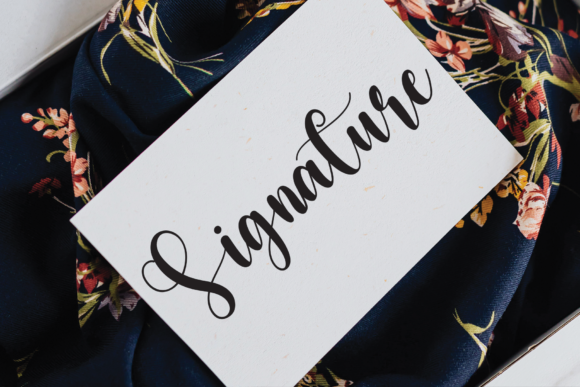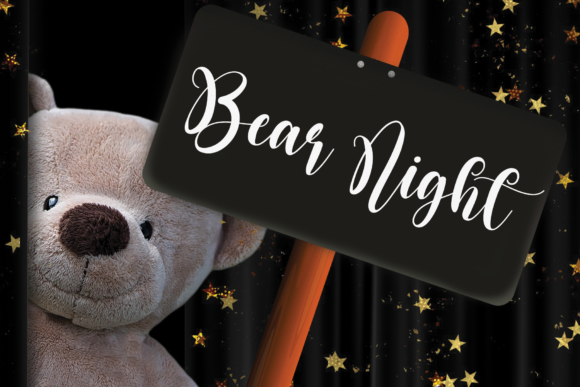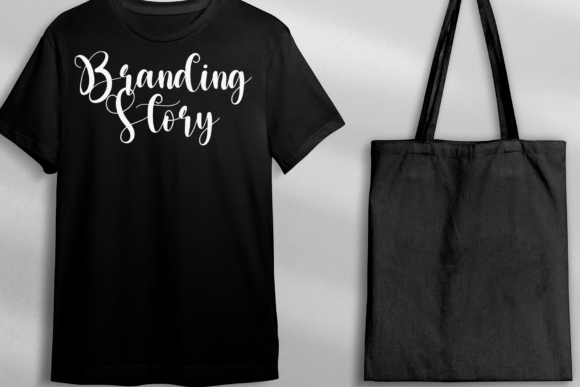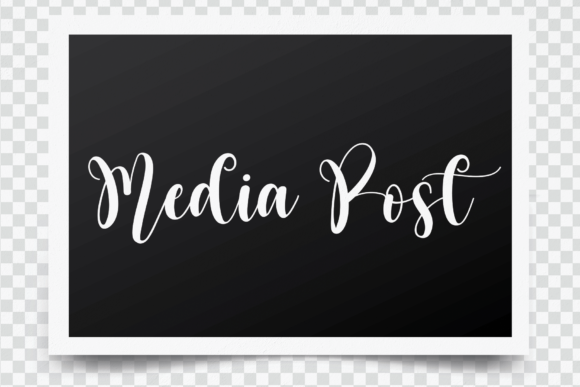
Introducing Absolute Font: The Epitome of Sophistication and Elegance
In the realm of typography, few fonts manage to convey the essence of luxury and refinement as effortlessly as Absolute Font. This chic, sophisticated script font is designed to add a touch of elegance to any project, making it a perfect choice for designers and crafters seeking to elevate their creations. With its stylish alternates and ligatures, Absolute Font stands out as a versatile and beautiful typeface that can transform the aesthetic of your designs.
The Design Philosophy Behind Absolute Font
Absolute Font is crafted with precision and attention to detail, embodying a refined script style that exudes sophistication. Its design philosophy revolves around creating a sense of fluidity and harmony, making it ideal for projects that demand a high level of elegance and poise. Whether you’re working on a luxury brand’s logo, a high-end fashion magazine, or an elegant wedding invitation, Absolute Font is engineered to bring a level of refinement that’s hard to match.
Key Features of Absolute Font
- Stylish Alternates: One of the standout features of Absolute Font is its set of stylish alternates. These variations allow designers to add a unique twist to their text, making it more engaging and visually appealing. The alternates can be used to create a sense of movement or to simply add some variety to your typography.
- Ligatures: Ligatures are an essential part of script fonts, and Absolute Font does not disappoint. The font includes a range of ligatures that seamlessly connect letters, creating a smooth and natural flow. This feature is particularly useful for body text, where readability and aesthetics are paramount.
- Elegant and Versatile: Absolute Font’s design is both elegant and versatile. It can be used across various mediums, from digital platforms to print materials. Its ability to convey sophistication makes it a go-to choice for projects that require a touch of luxury.
Applications of Absolute Font
The versatility of Absolute Font makes it suitable for a wide range of applications. Here are a few ideas on how to use this beautiful font:
- Branding and Logos: For luxury brands, Absolute Font can be used to create a logo that communicates elegance and sophistication.
- Wedding and Event Invitations: The font’s refined and elegant appearance makes it perfect for wedding invitations, event posters, and other formal announcements.
- Fashion and Beauty: Absolute Font is well-suited for fashion and beauty projects, including magazine layouts, product packaging, and advertising.
- Web Design: For websites that require a touch of luxury, Absolute Font can be used for headings, titles, and even body text, depending on the design requirements.
Tips for Using Absolute Font Effectively
To get the most out of Absolute Font, consider the following tips:
- Mix and Match: Don’t be afraid to experiment with the font’s alternates and ligatures. Mixing and matching different styles can add depth and interest to your design.
- Pay Attention to Spacing: As with any script font, spacing is crucial. Make sure to adjust the tracking and kerning to ensure that your text is easy to read and visually appealing.
- Use it Sparingly: While Absolute Font is beautiful, it’s best used sparingly. Consider using it for headings or key messages to draw attention and add emphasis.
Absolute Font is a stunning script font that brings a level of sophistication and elegance to any project. Its stylish alternates, ligatures, and versatile design make it a valuable addition to any designer’s toolkit. Whether you’re creating a luxury brand identity, a beautiful wedding invitation, or a high-end fashion magazine, Absolute Font is sure to elevate your design and leave a lasting impression.